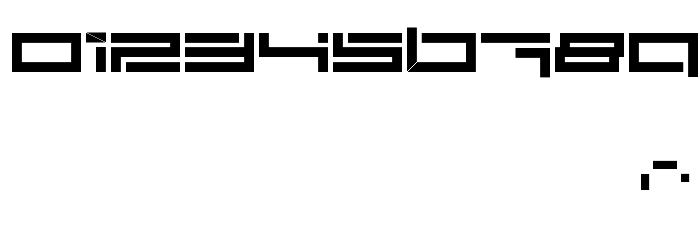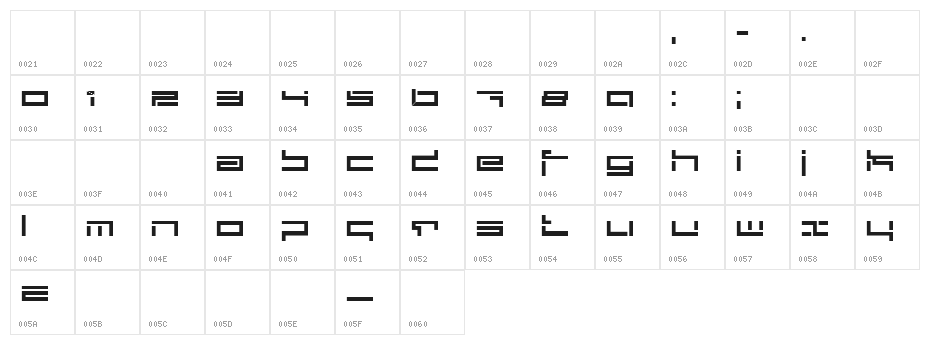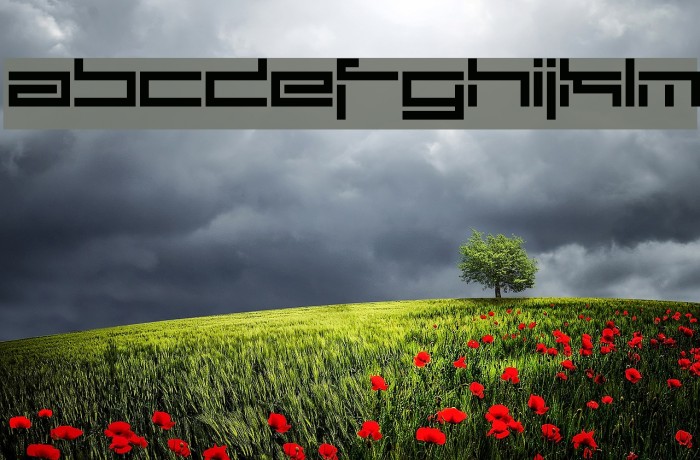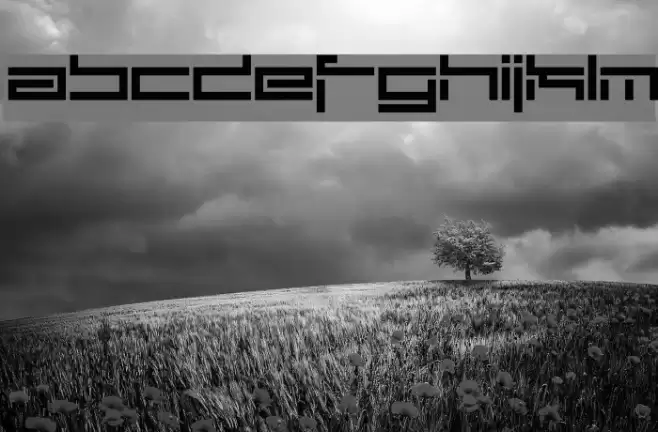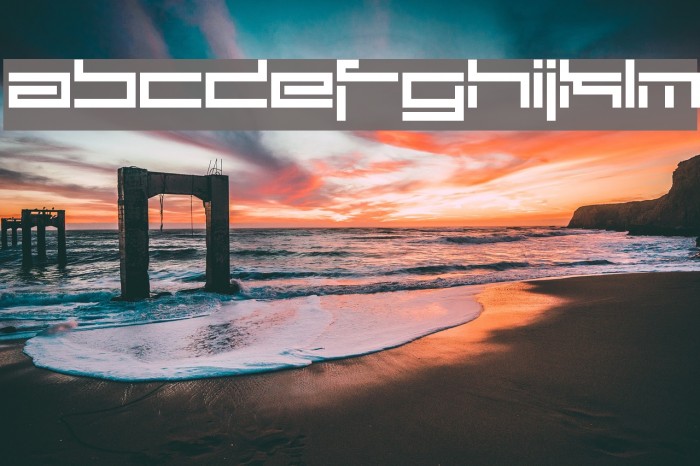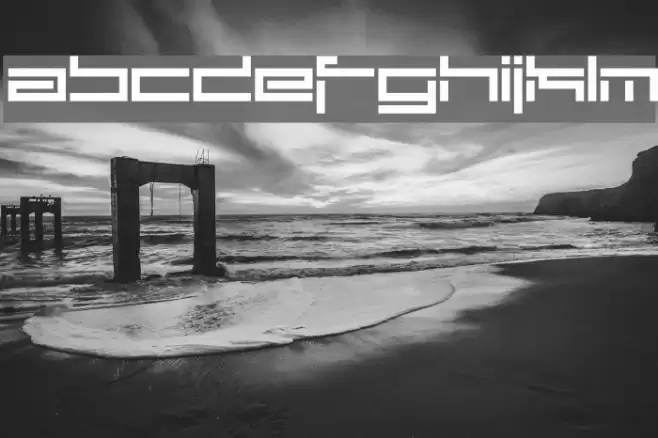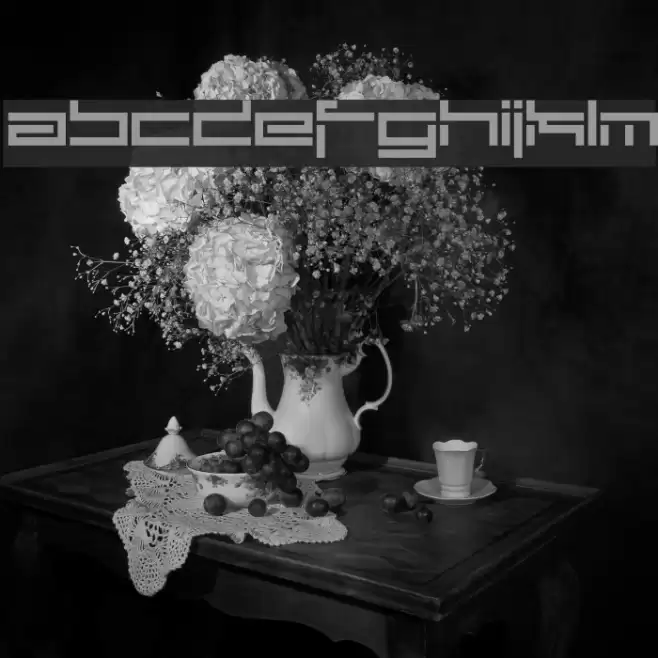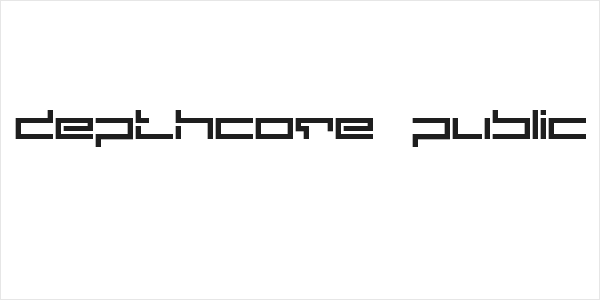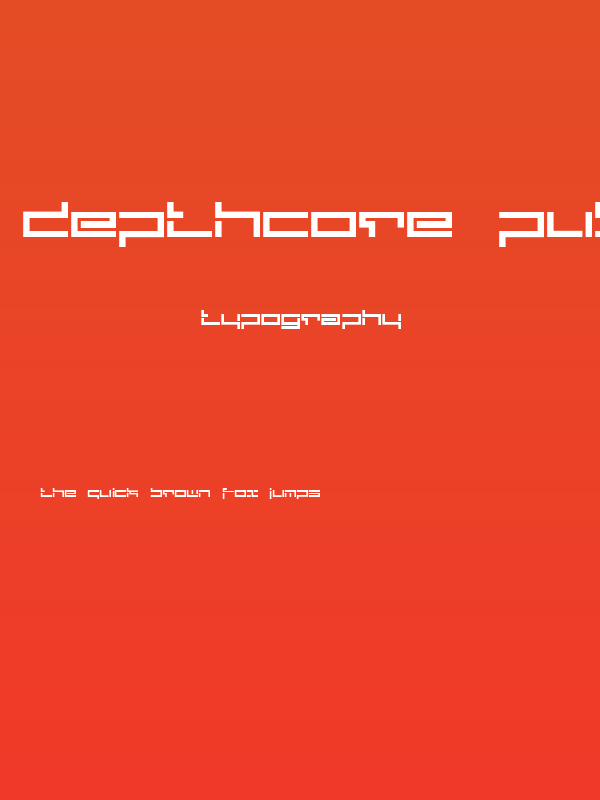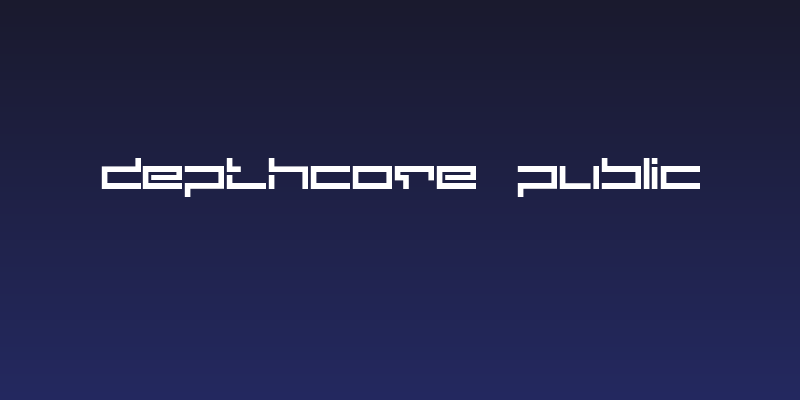
depthcore public Font
depthcore public Description
This font features a futuristic and geometric design, characterized by its blocky and angular letterforms. Each character is constructed with a consistent thickness, giving it a uniform appearance. The font's structure is reminiscent of digital or technological themes, with a strong emphasis on straight lines and right angles. The uppercase and lowercase letters share a similar design, maintaining the geometric aesthetic throughout. The numerals and special characters are designed to match the overall style, ensuring a cohesive look across all elements. This font is suitable for projects that require a modern and edgy feel, such as tech-related branding, digital interfaces, or sci-fi themed designs.
| Use Case | Logos, Headlines |
| Proposed Projects | Ideal for tech branding, digital interfaces, and sci-fi themed designs. |